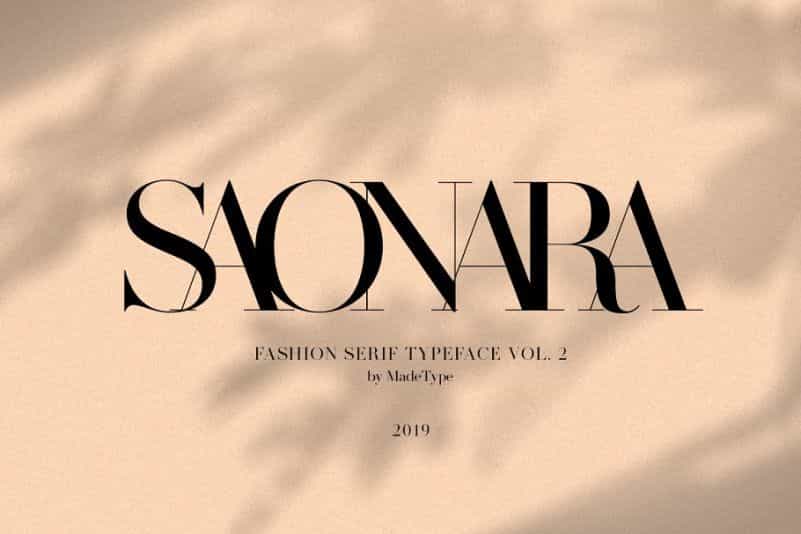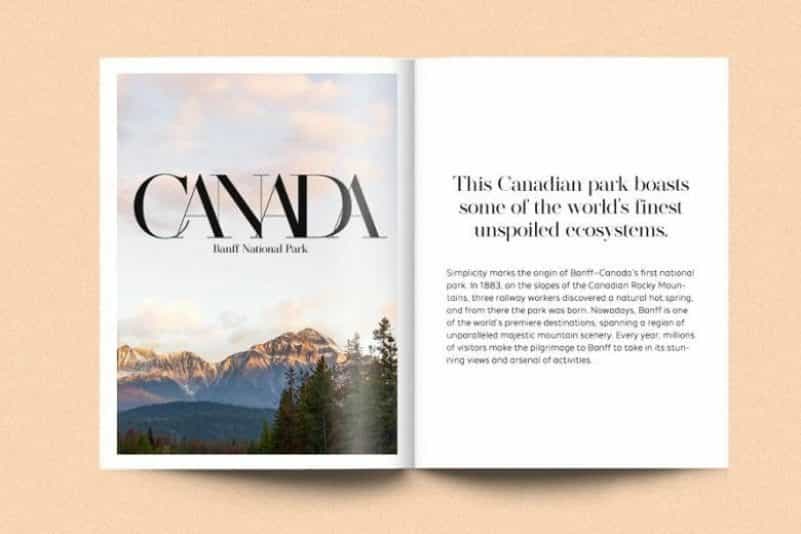
Introducing Made Saonara Font. MADE SAONARA is a serif typeface that fashion was the inspiration for. The SAONARA will perfect for many project: fashion, magazines, logos and branding, photography of wedding invitations and quotes for the blog header posters ads etc.